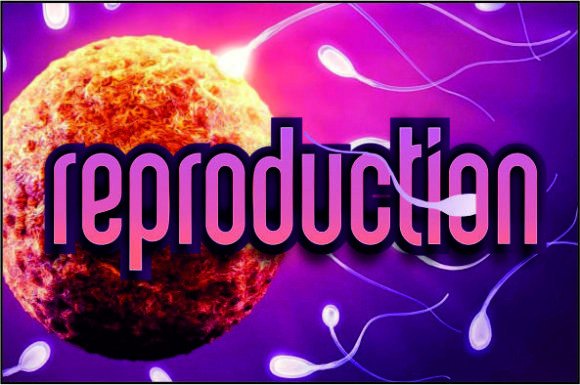
Introducing Reproduction Font: The Gateway to Remarkable Cover Letters That Radiate Professionalism
In the competitive landscape of the professional world, your cover letter is often the first impression you make on potential employers. With Reproduction Font, a captivating display font, you'll craft cover letters that radiate sophistication, creativity, and an unwavering sense of professionalism, leaving a lasting impact on hiring managers.
Reproduction Font is the brainchild of uroboros130875, a creative visionary with a knack for crafting fonts that resonate with the modern professional. This font possesses an inimitable charm that effortlessly blends elegance and modernity, ensuring your cover letter stands out amidst a sea of generic submissions.
Gone are the days of bland, monotonous cover letters that fail to capture attention. With Reproduction Font, you'll breathe life into your job applications, transforming them into visually striking masterpieces that showcase your unique personality and unwavering dedication. Its carefully crafted glyphs dance across the page, creating a visual symphony that commands attention and leaves an indelible impression.
Picture this: as hiring managers sift through stacks of cover letters, your application adorned with Reproduction Font will shine like a beacon of brilliance. Its captivating curves and striking lines will draw their eyes like a magnet, compelling them to delve deeper into your qualifications and experience. No longer will your letters be relegated to the rejection pile; instead, they'll be eagerly reviewed, setting you apart from the competition.
So, why settle for ordinary when you can make an extraordinary statement with Reproduction Font? Embark on this typographic journey, and let your cover letters exude confidence, creativity, and an unwavering determination to succeed. Let Reproduction Font be your secret weapon, propelling you towards your dream job.